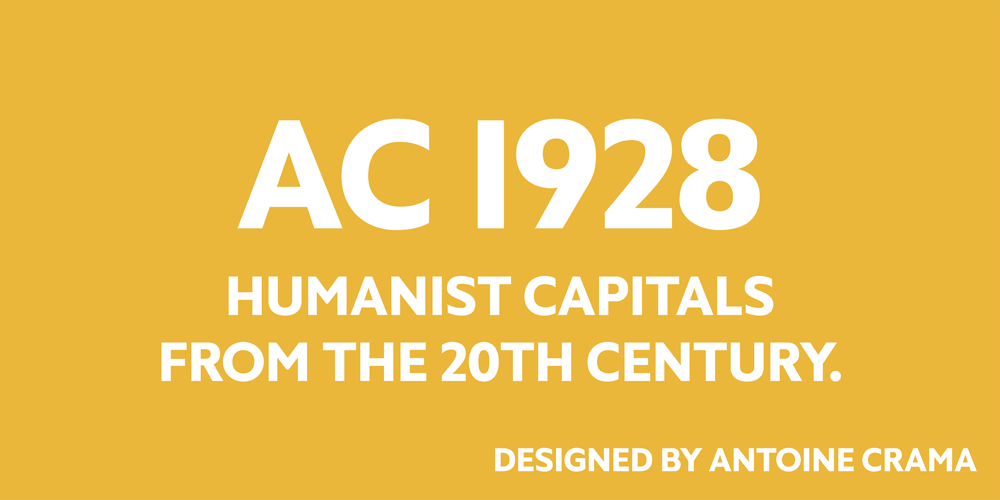
AC 1928 Font Family was designed by Antoine Crama and published by Antoine Crama. AC 1928 contains 1 styles and family package options. AC 1928 is a clean titling typeface conceived as a reinterpretation of the timeless british humanist capitals of the 20th century. It is a good choice to transmit a message with style and elegance. It is perfect for branding, editorial design and corporate identity.